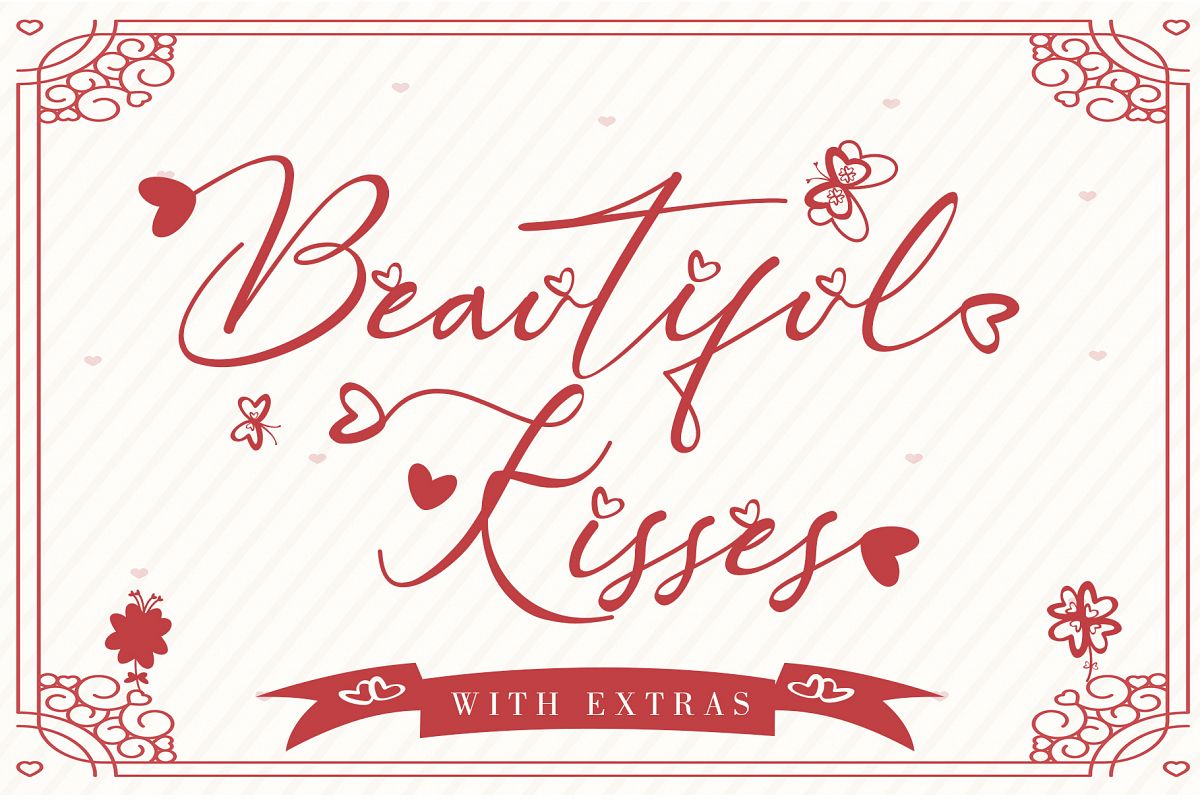
Beautiful Kisses Surely is an extraordinary script and
perfect to express your love. “Love must always be worthy of happiness”. It has
an amazingly beautiful and elegant style.
5. Alternates (A-Z, a-z), Swash (A-Z,
a-z), Titling (a-z), and Ligature